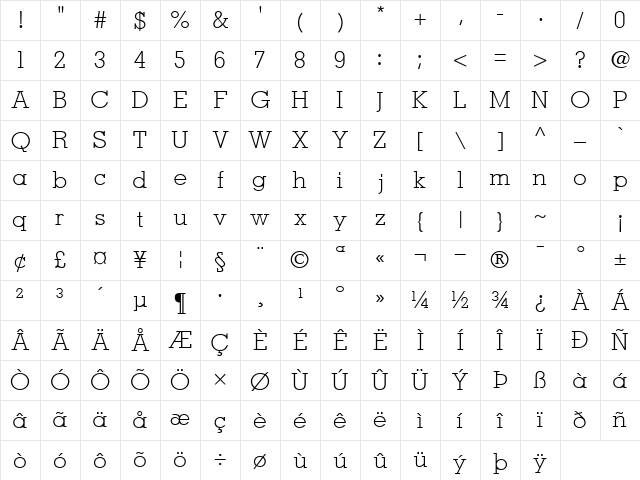
Design Context for JaakLightSSK
JaakLightSSK is a composed and adaptable typeface that performs quietly and consistently across a wide range of design contexts. Its slender proportions lend an understated elegance to any composition.